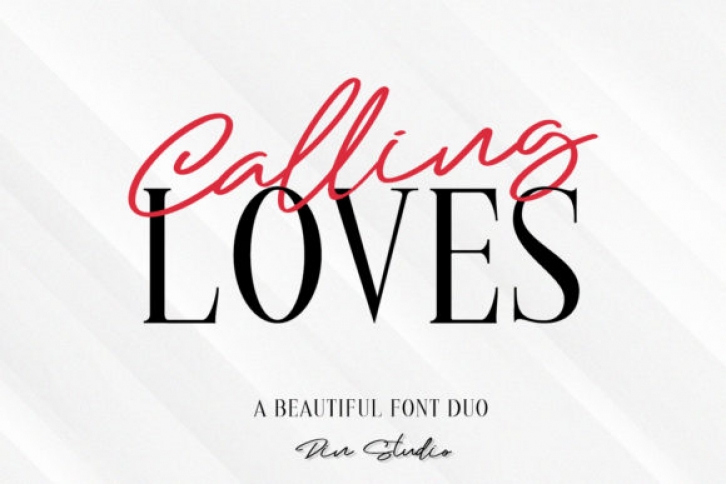
The Calling Loves is a beautiful font duo. The combination of its elegant script and modern serif, will give your design a beautiful touch.
It’s suitable for branding, web designs, signatures, logos, and every other design which needs an unique look.